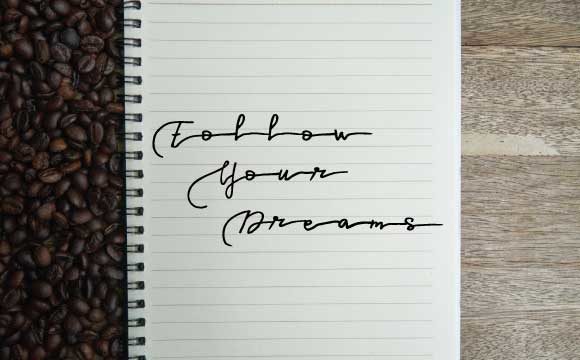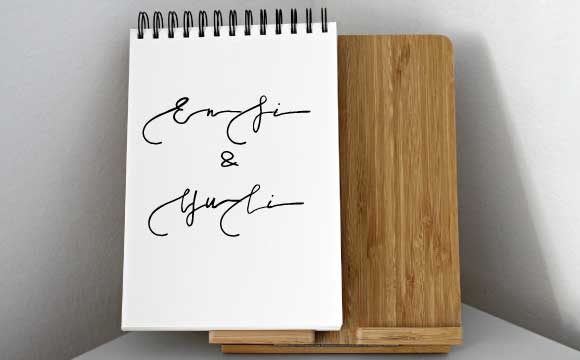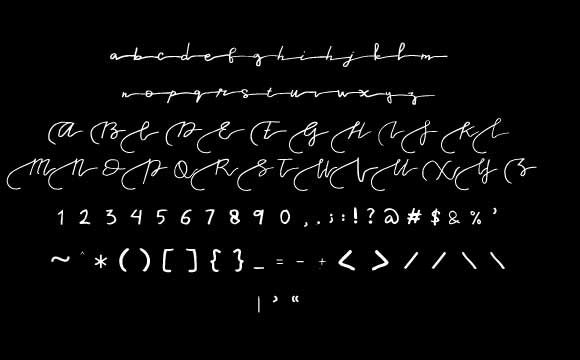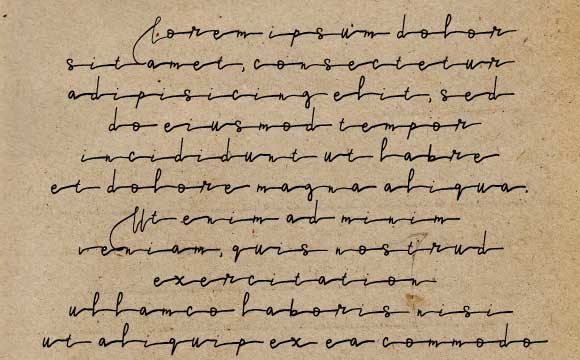
Follow Your Dreams Font
About Follow Your Dreams Font
Follow your dreams is a sweet and charming handwritten font with a unique style. Get inspired by its bold charm!